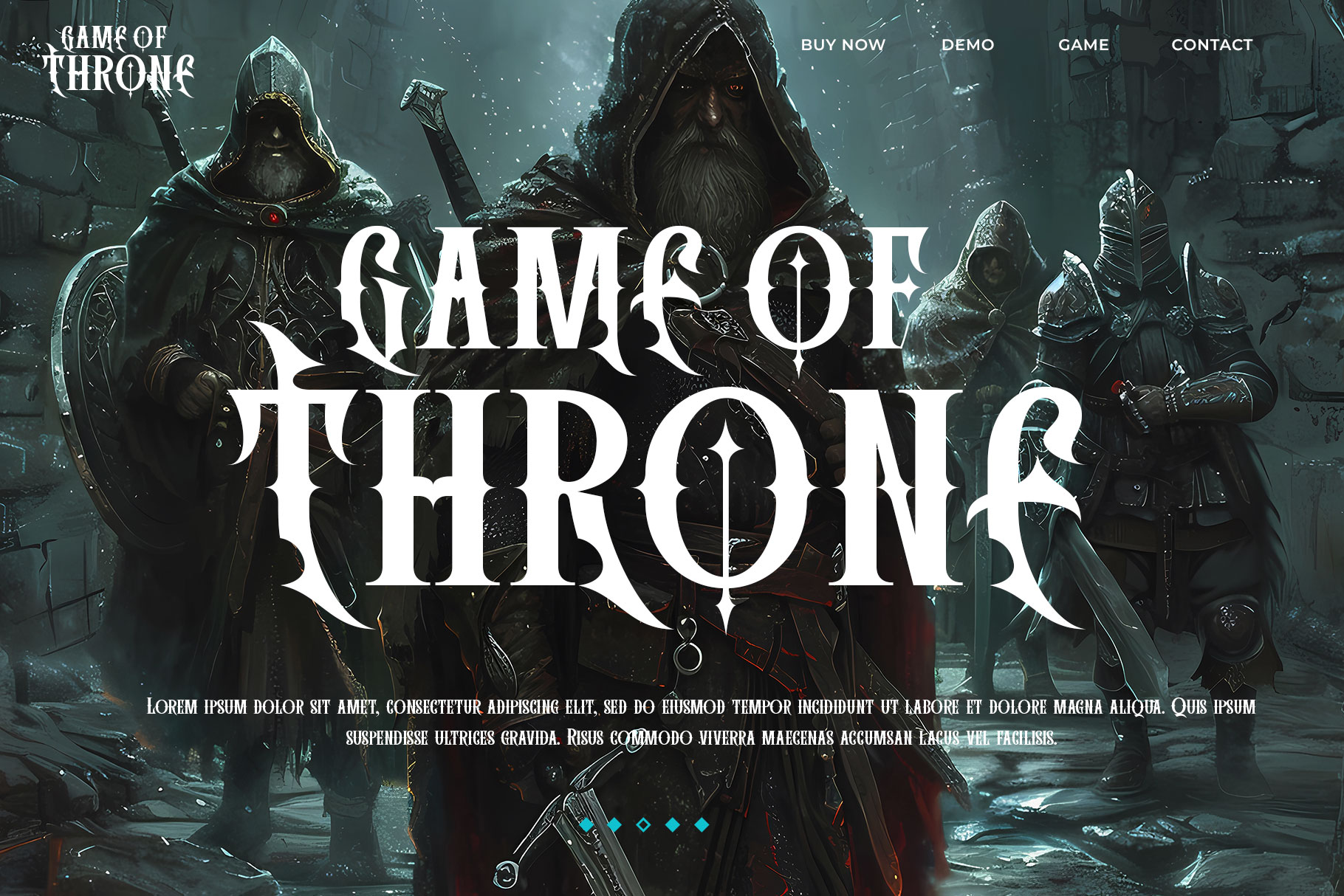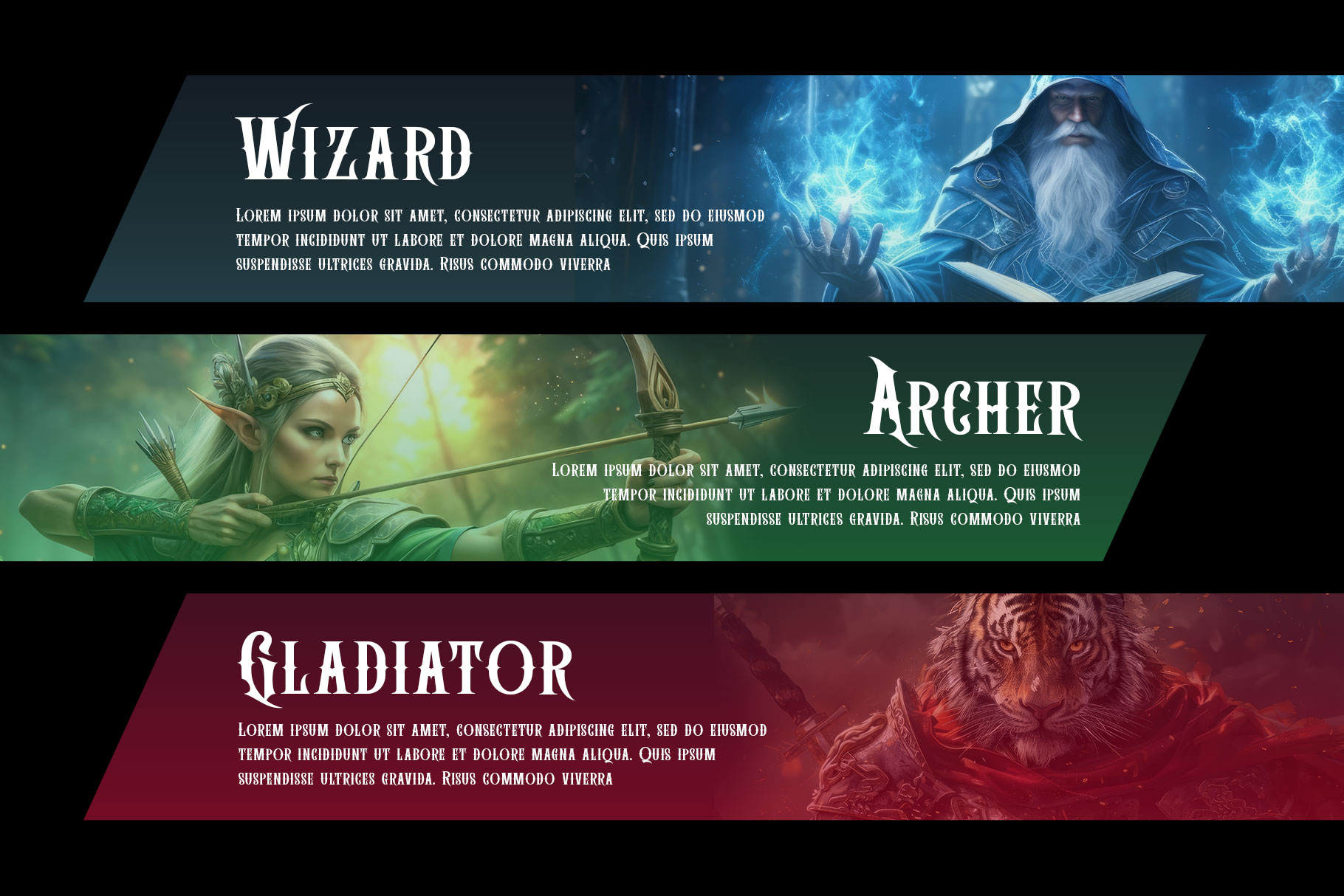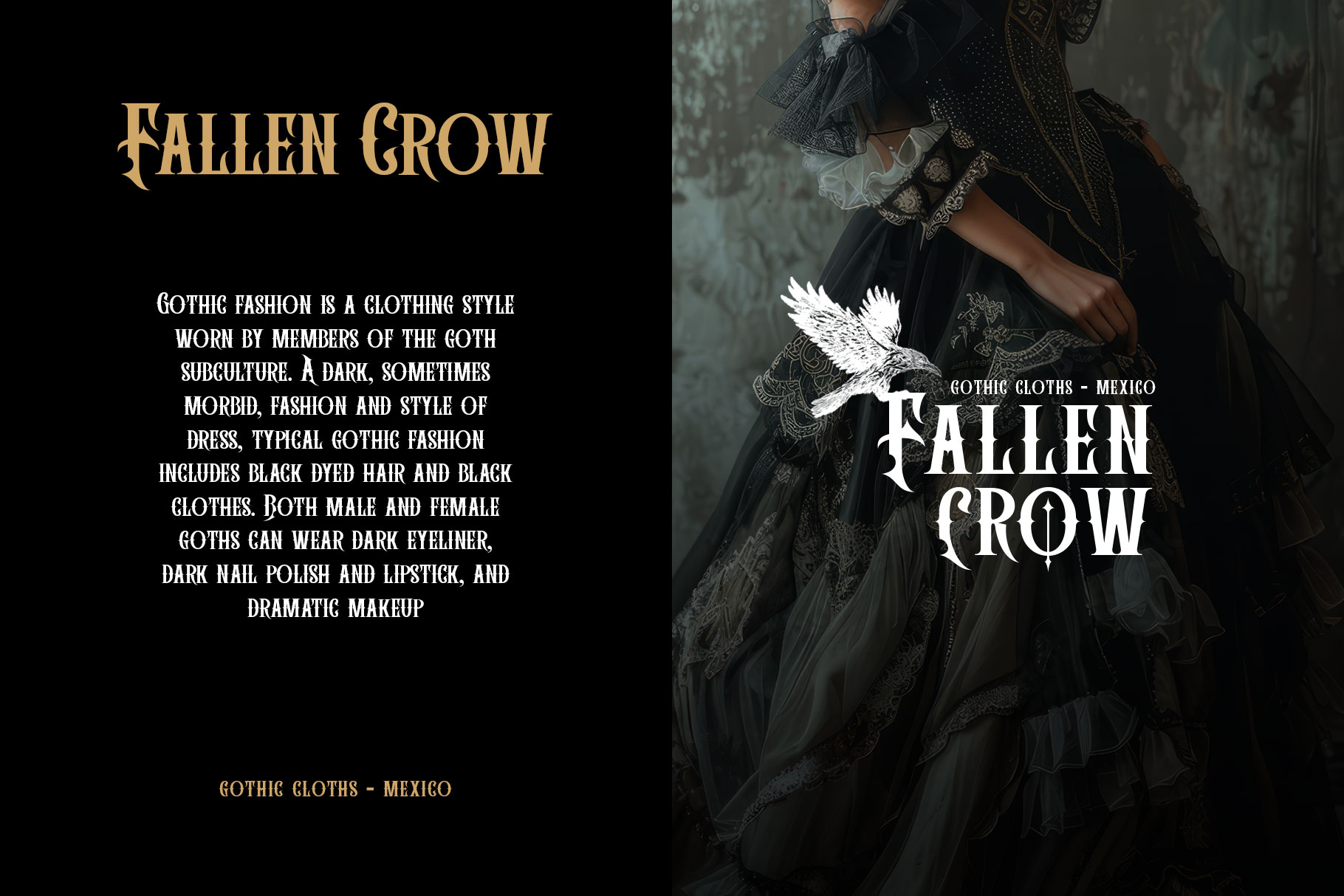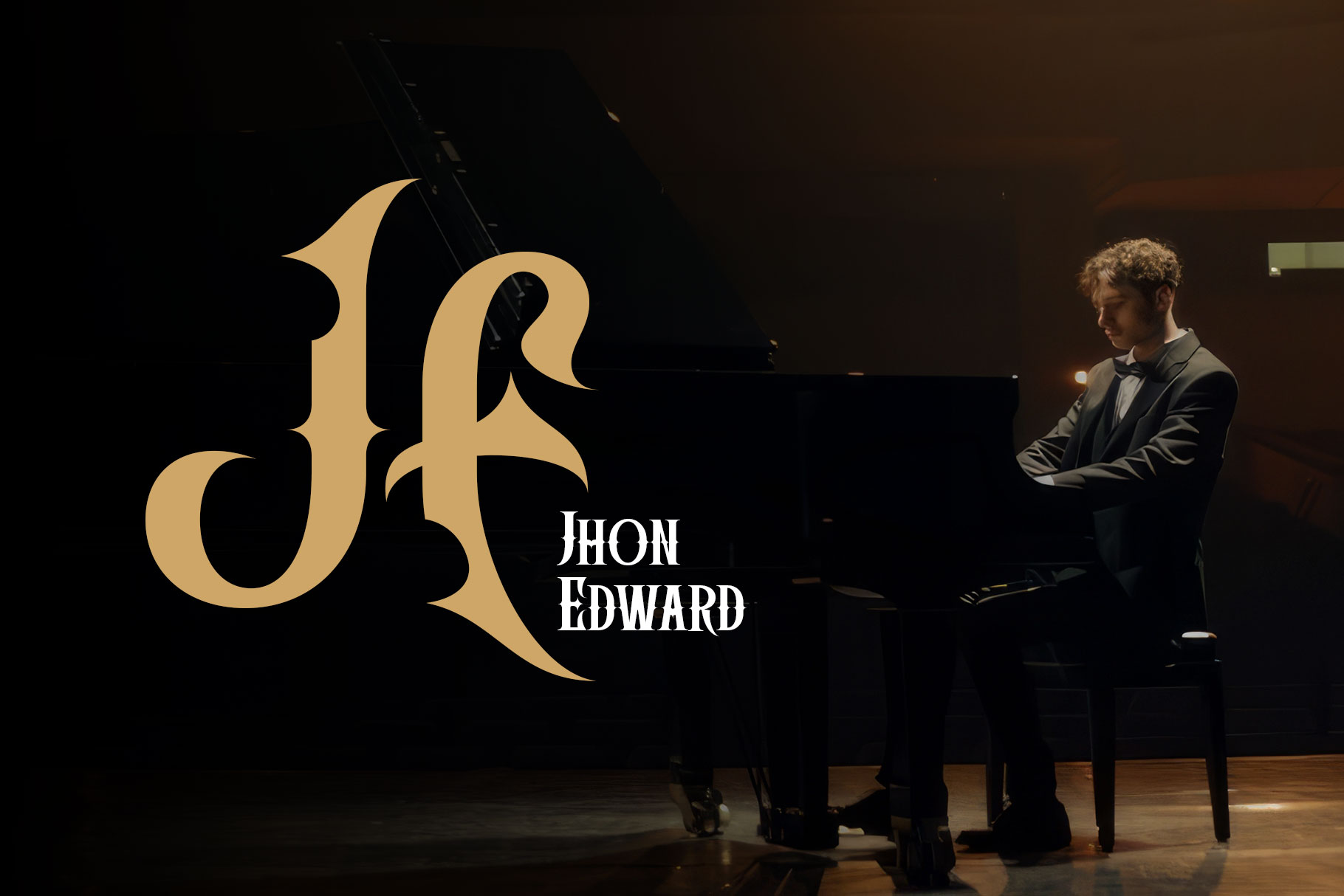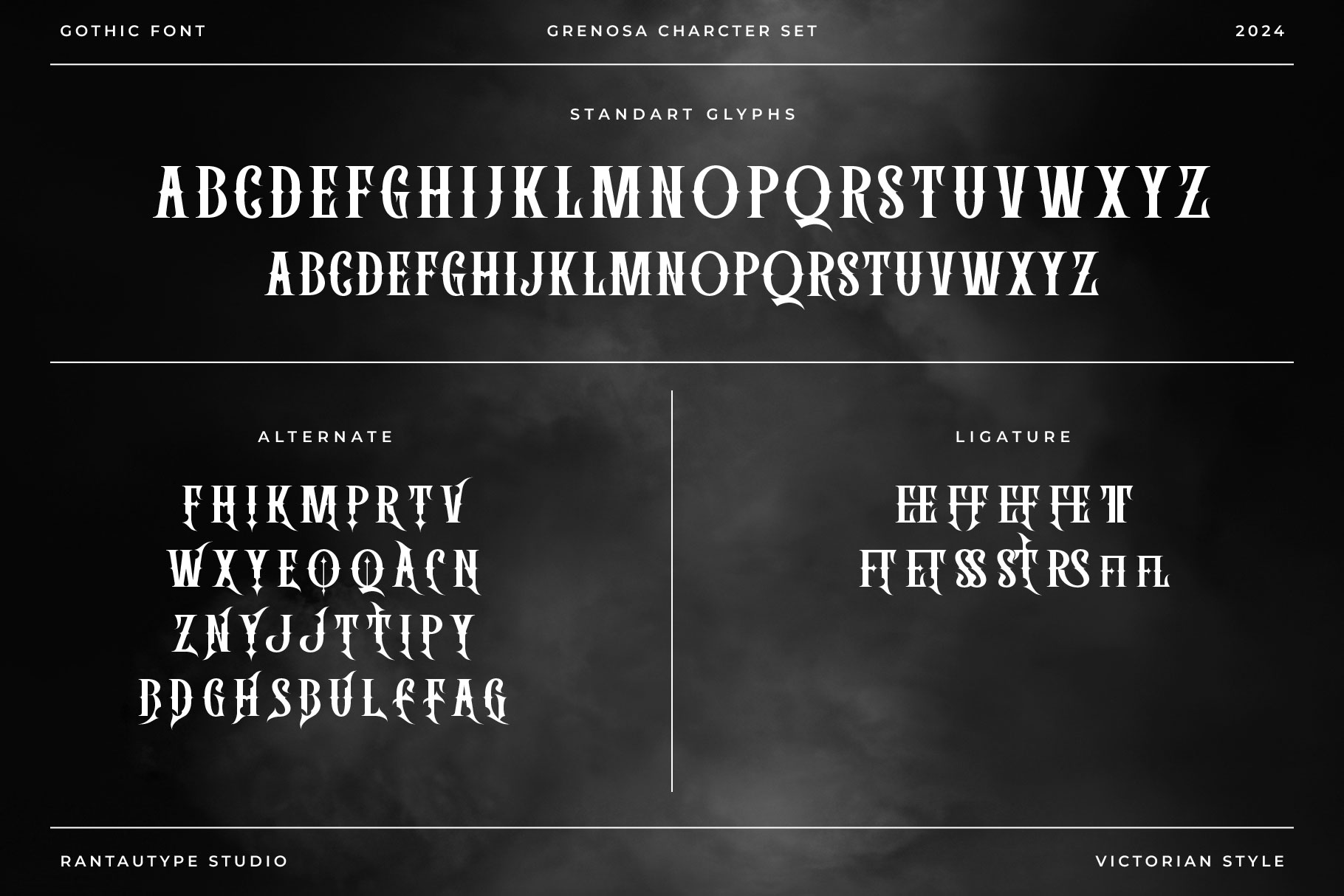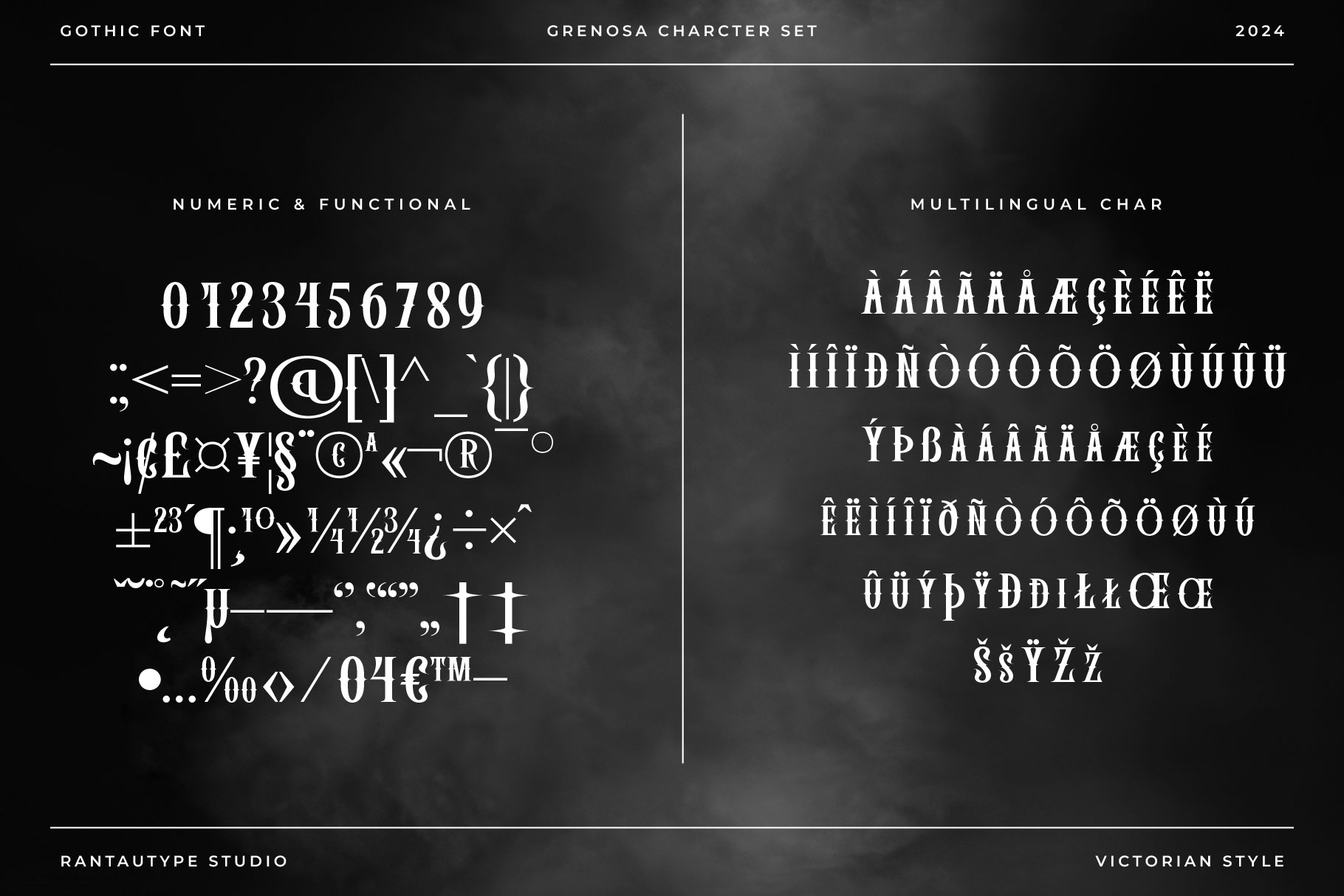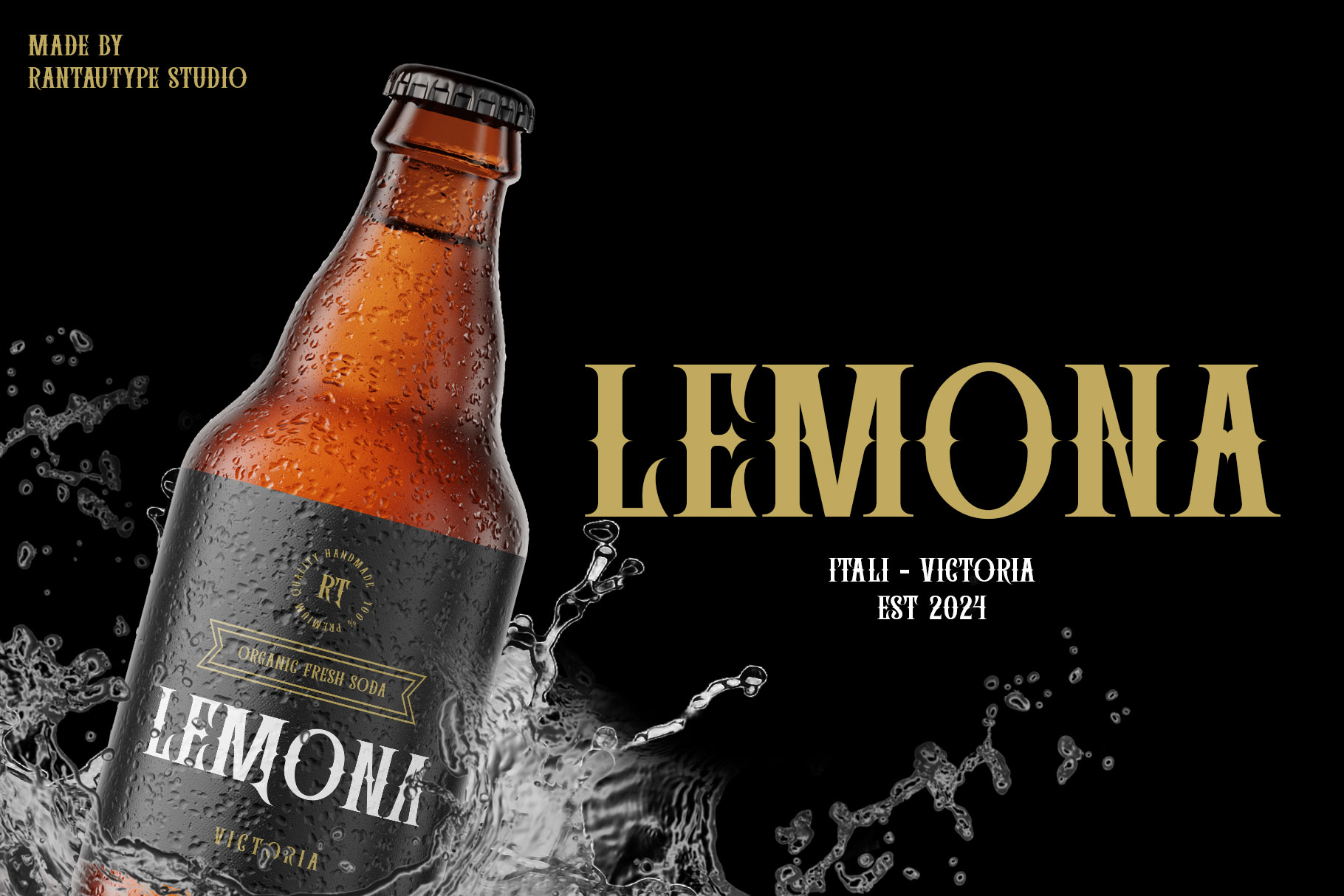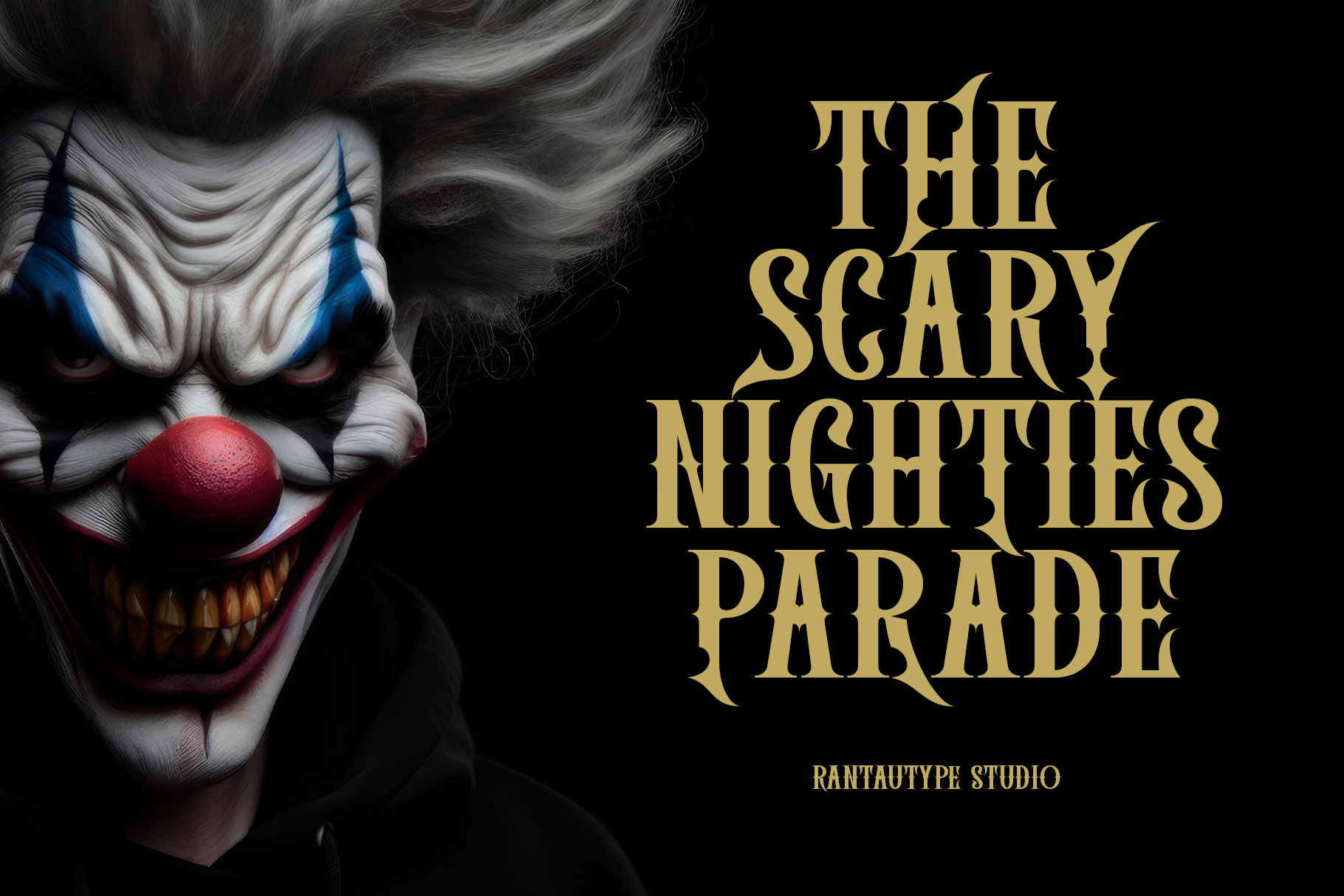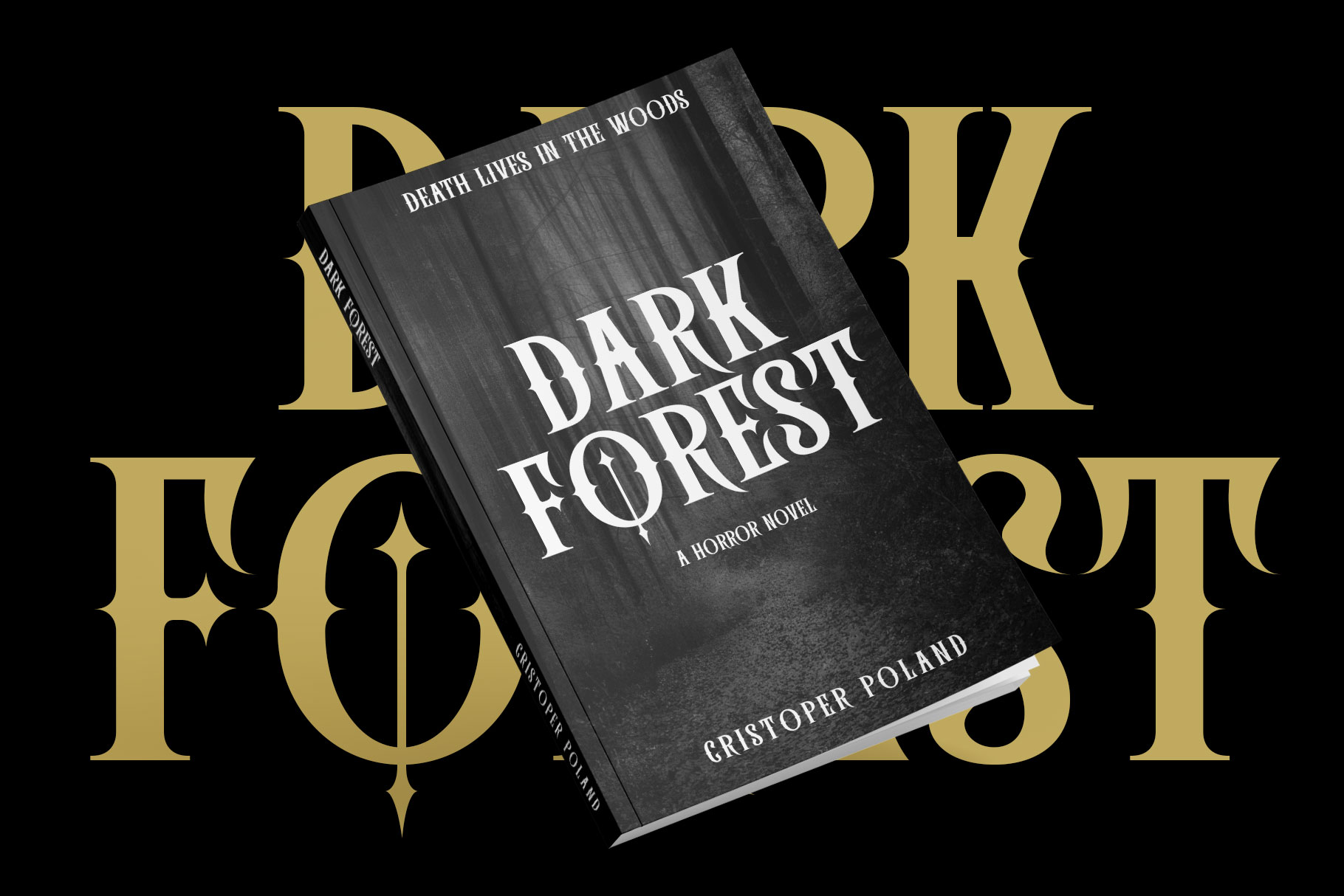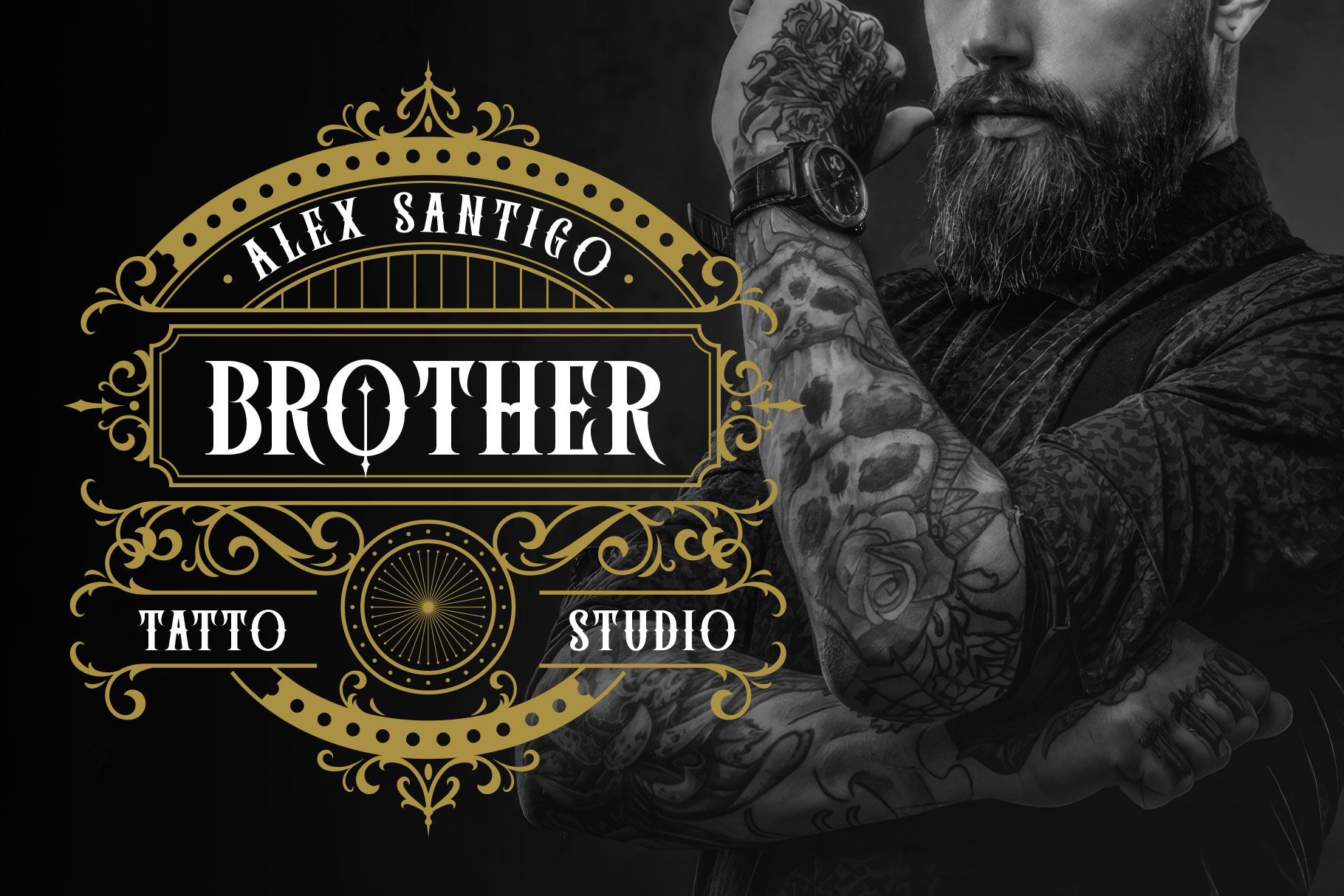
Grenosa Gothic Font
Grenosa is gothic font with metal and victorian style. Grenosa bring sophisticated of gothic font into horror, dark and fantasy visual design. Grenosa come with more versatile with the addition of stylistic alternates that you can mix and match to make your design stand out even more.
Grenosa is a perfectly choice for any creative endeavor, chic, lifestyle design such as logotype, advertisements, watermark on photography, stationery, branding project, display and magazine, game design, invitation, corporate brand, product design, label, business project and other project with gothic/fantasy taste.